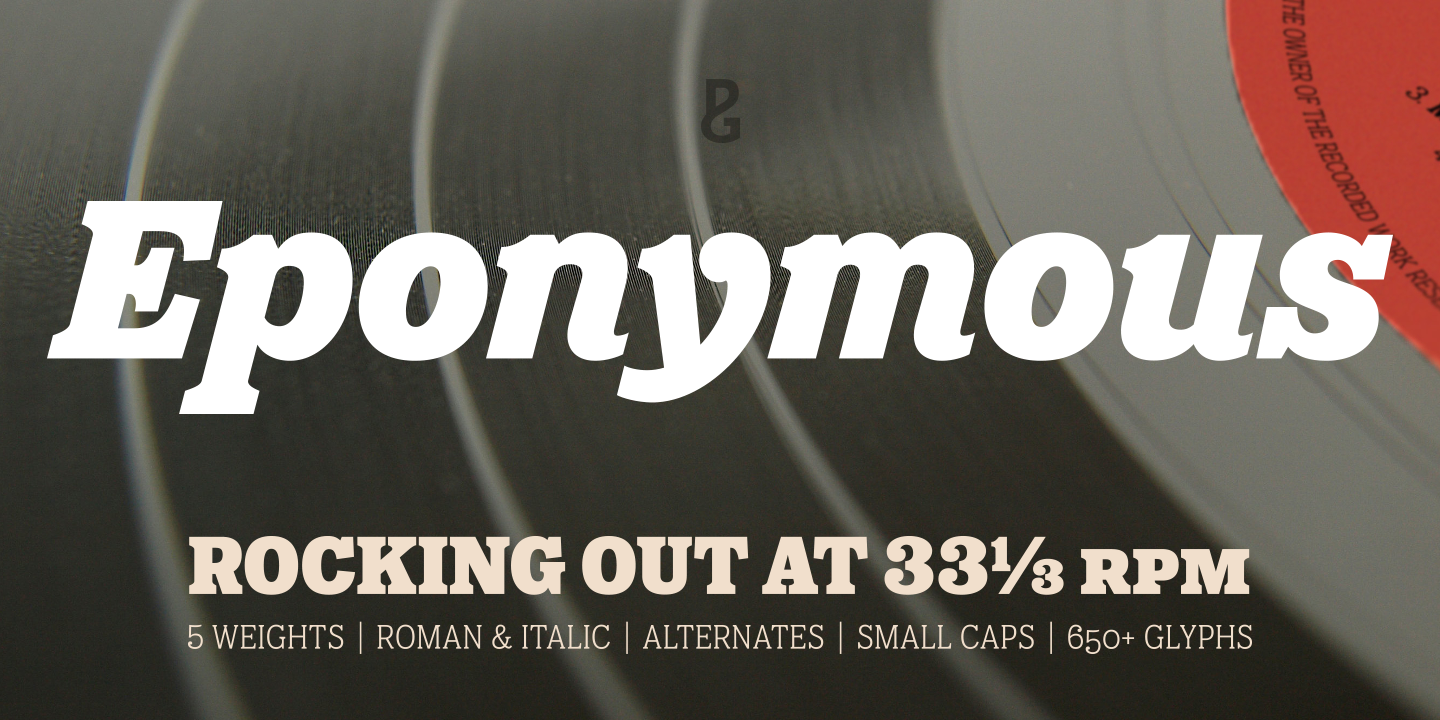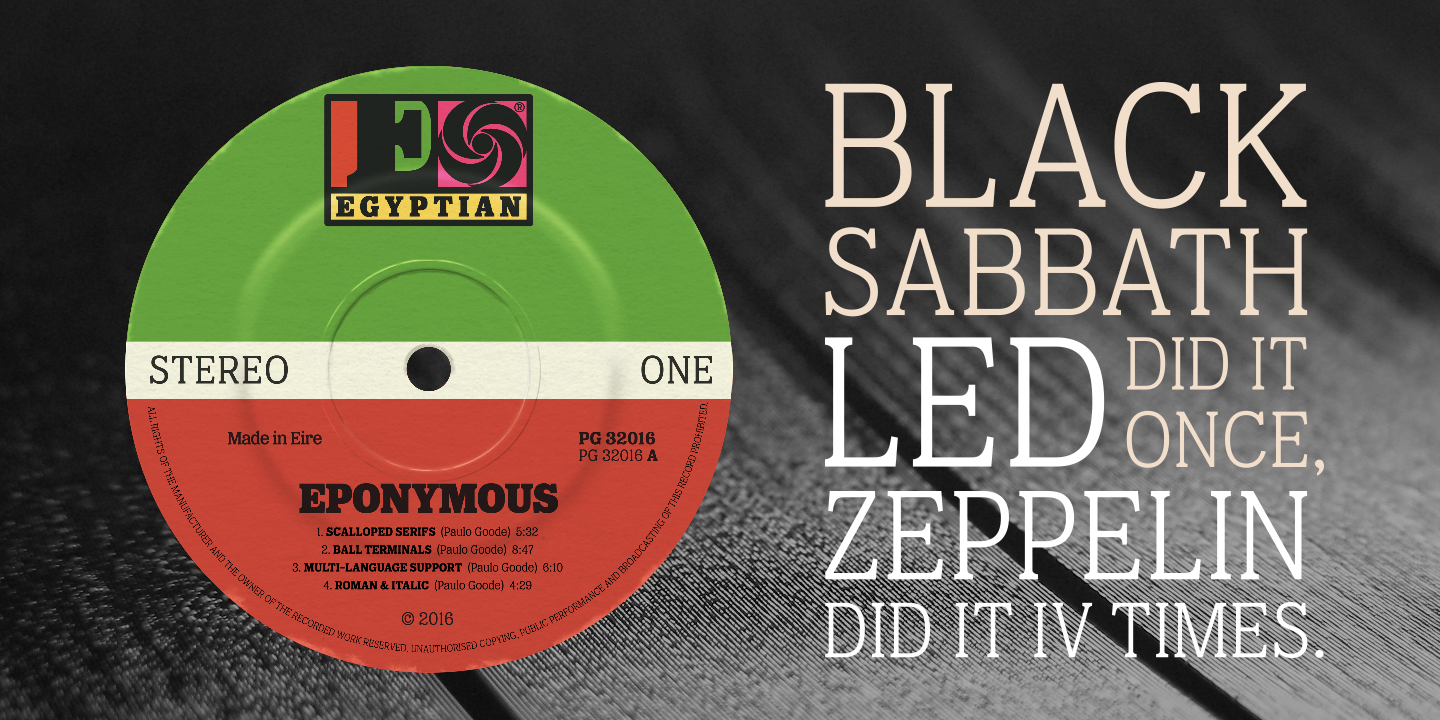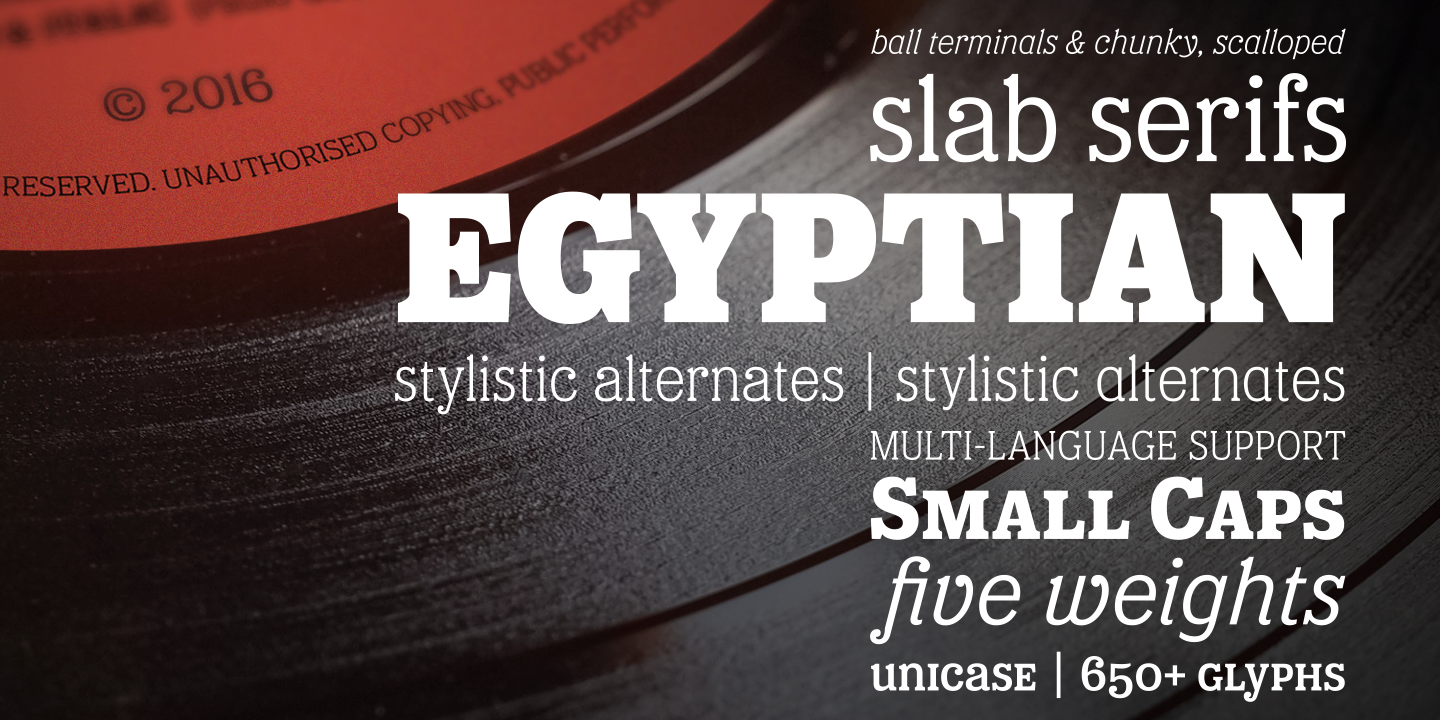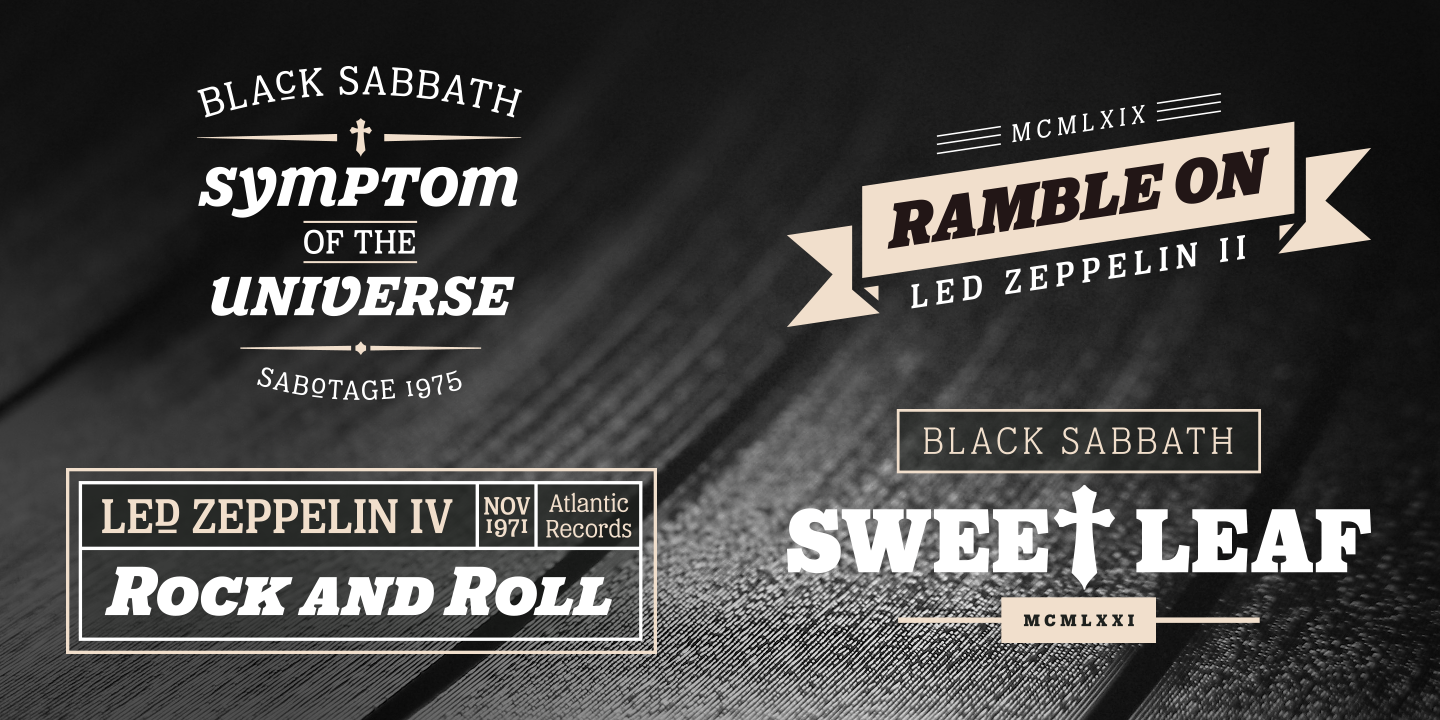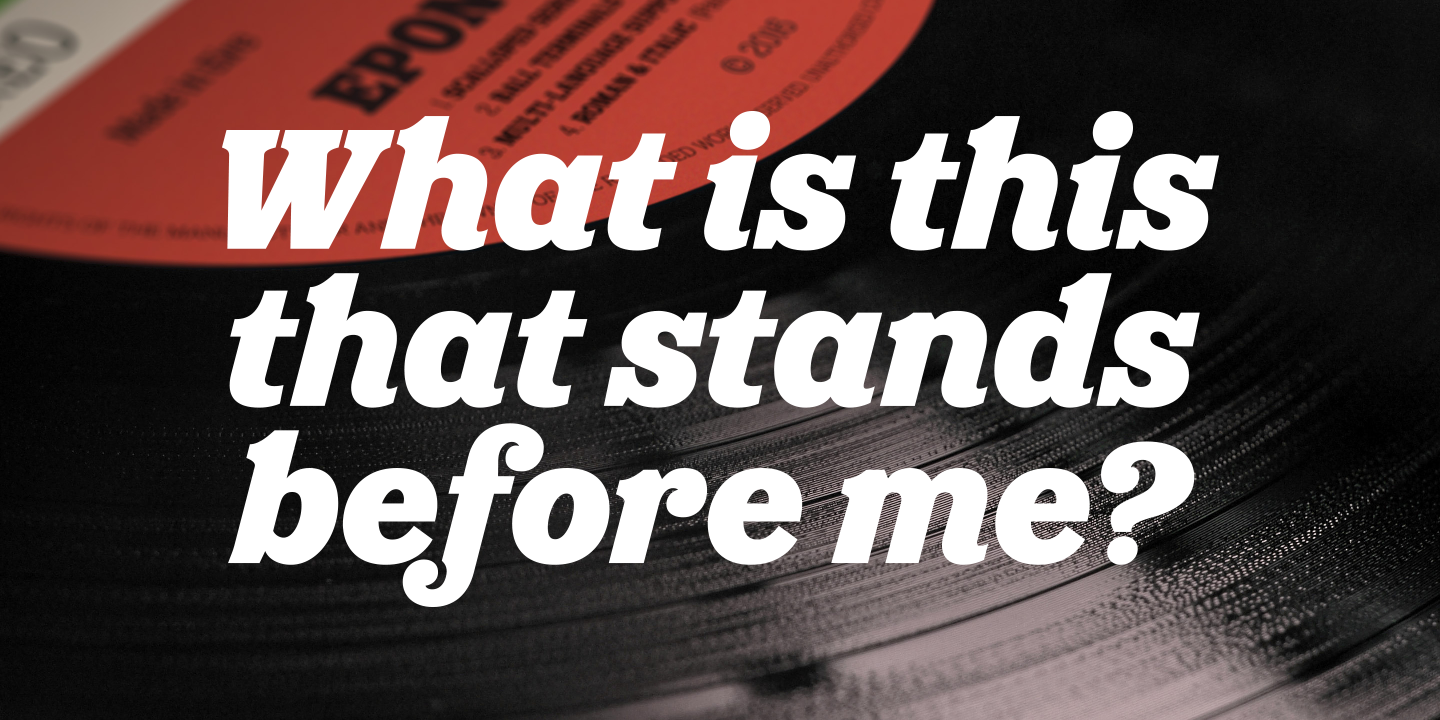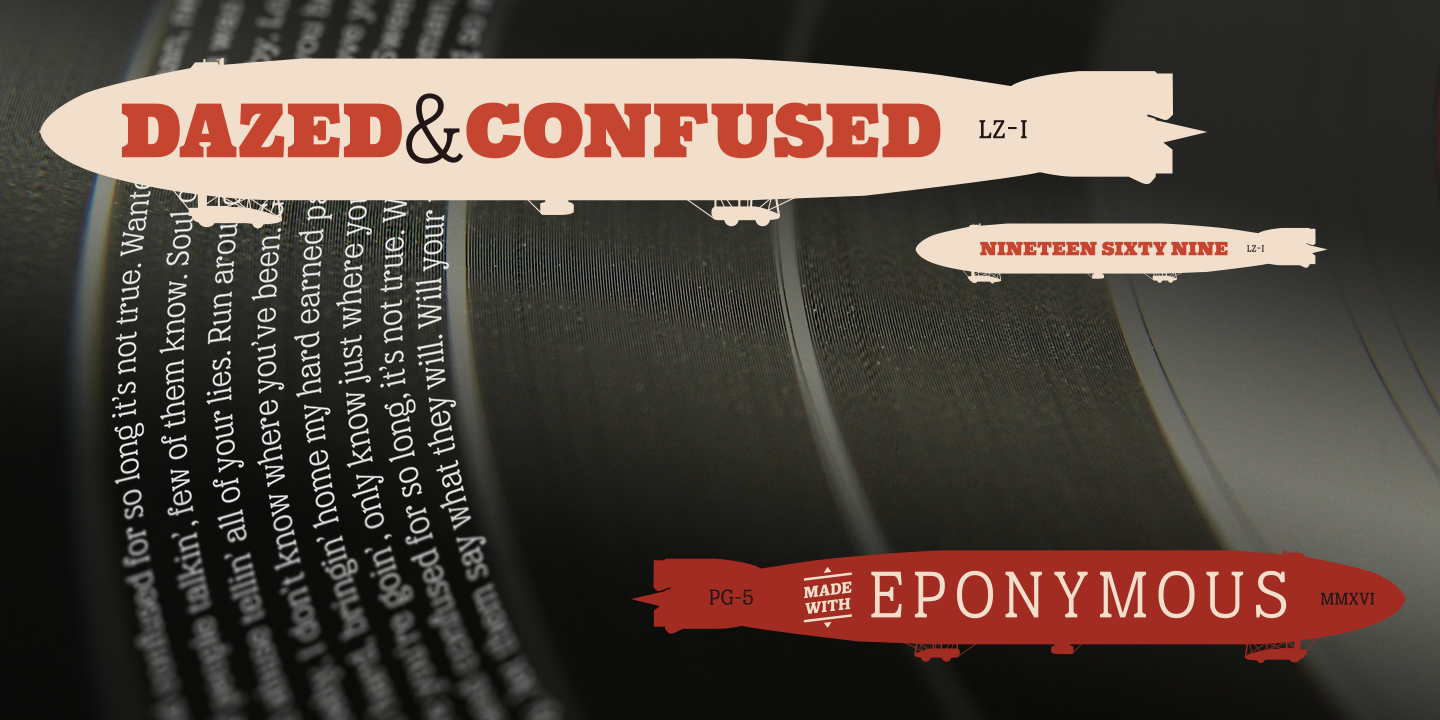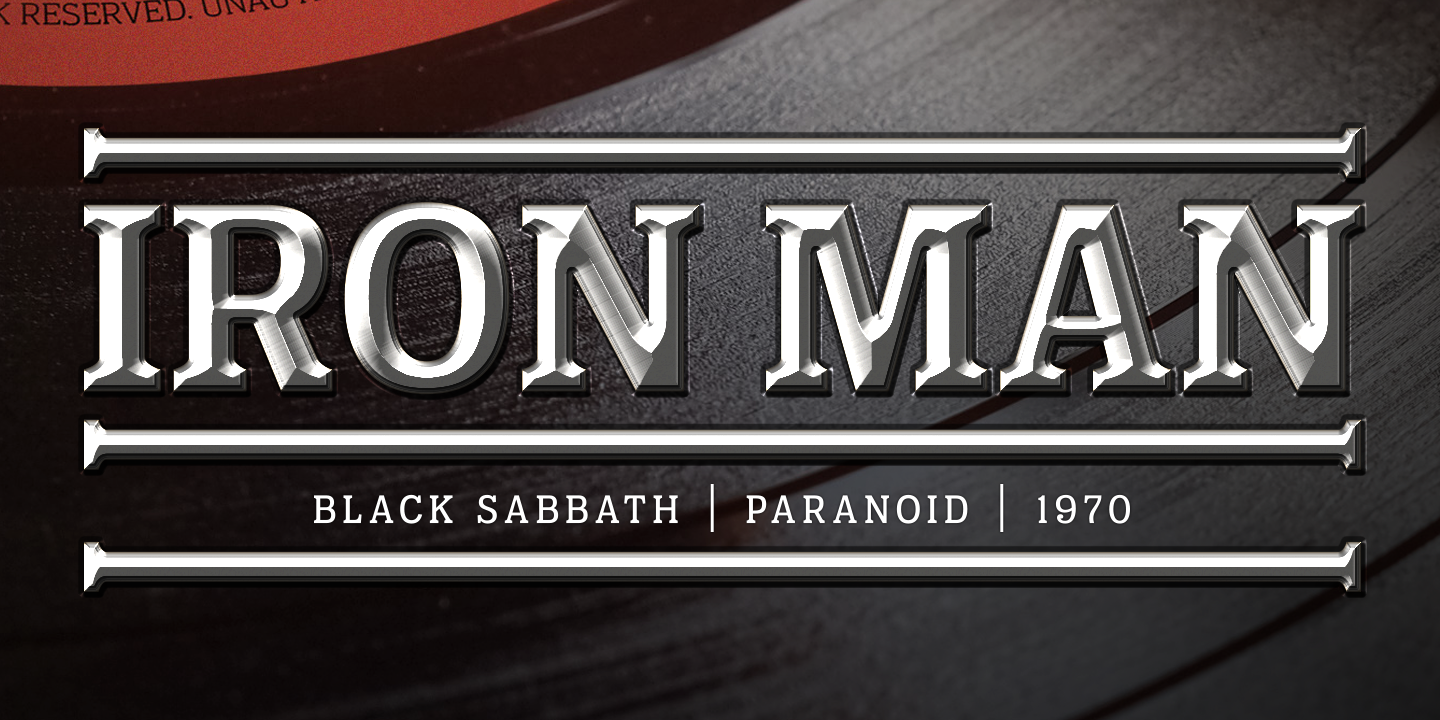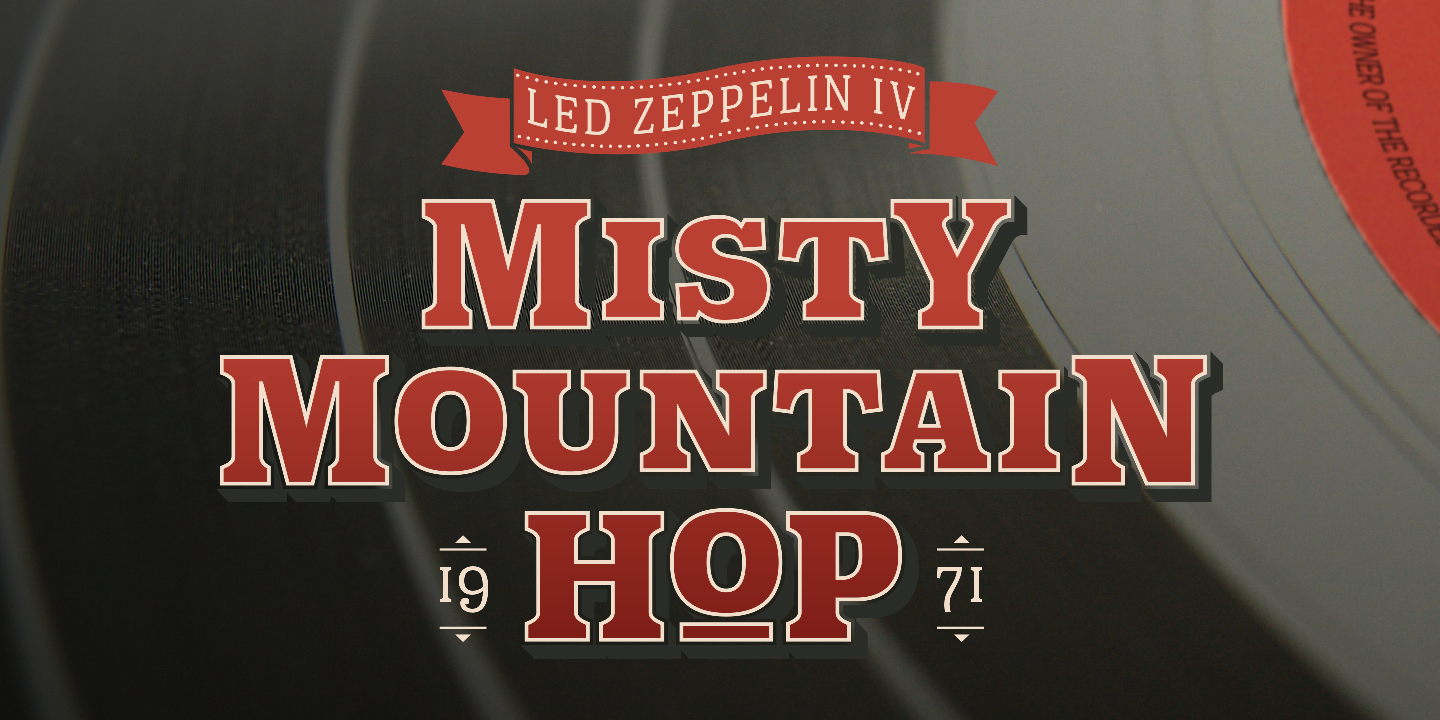
About the Eponymous Font
About Eponymous Font Family Eponymous is an Egyptian-style typeface with chunky, scalloped serifs, It is available in five weights in both roman and italic, I have always loved slab serif type and have created Eponymous to fulfil a yearning for a versatile, stylish and contemporary slab face, A key design characteristic is the implementation of scalloped serifs which, to me, imbues the typeface with a distinctive personality
Make use of the Open Type features that are part of Eponymous, For a start, you can implement some stylistic alternates, so, if the main characters don’t quite suit your concept, try activating Stylistic Set 1, There’s also a full set of small caps included
You can mix and match these characters with regular lowercase to create some interesting unicase typography, Of course, all characters have complementing diacritics, enabling multi-language support, Key features: Eponymous is is an Egyptian-style typeface with chunky, scalloped serifs5 weights in roman and italic:Light | Regular | Medium | Bold | BlackFull set of small caps with diacritics and figures30+ alternate charactersFull European character set650+ glyphs per font Eponymous was redrawn and re-spaced to a higher standard in April 2021 (v2